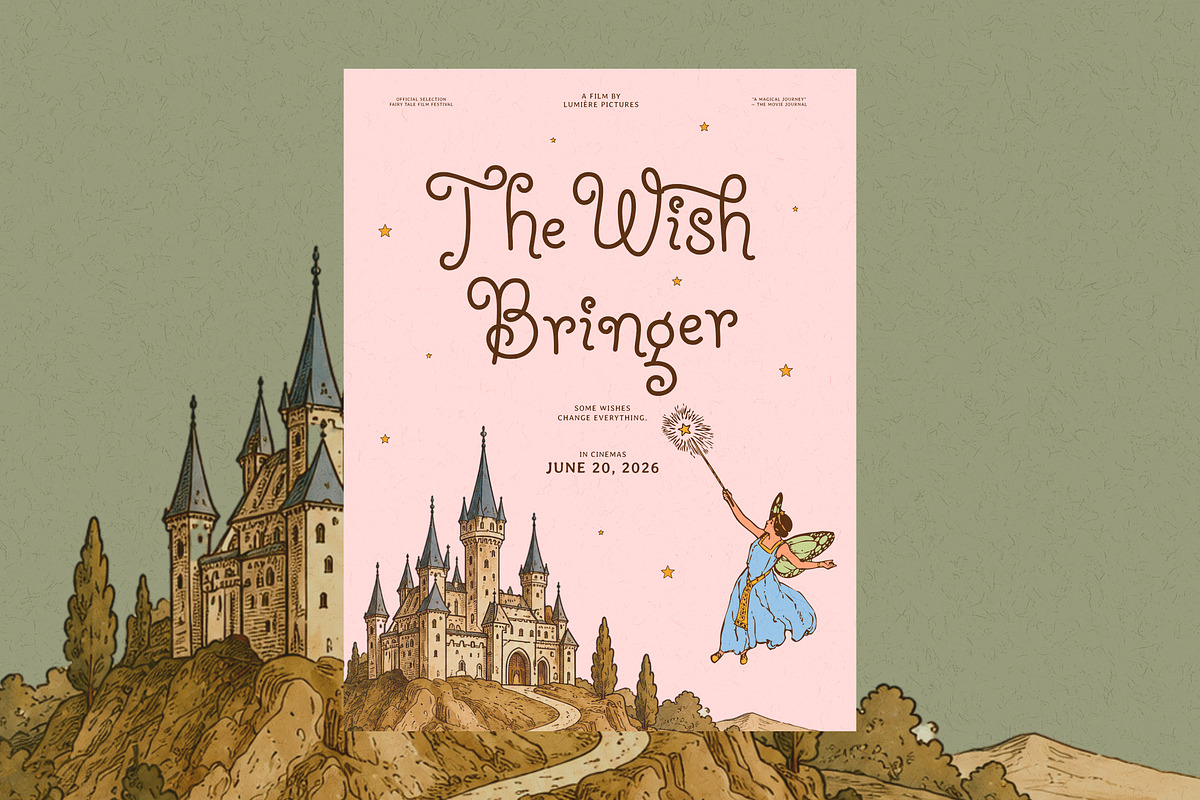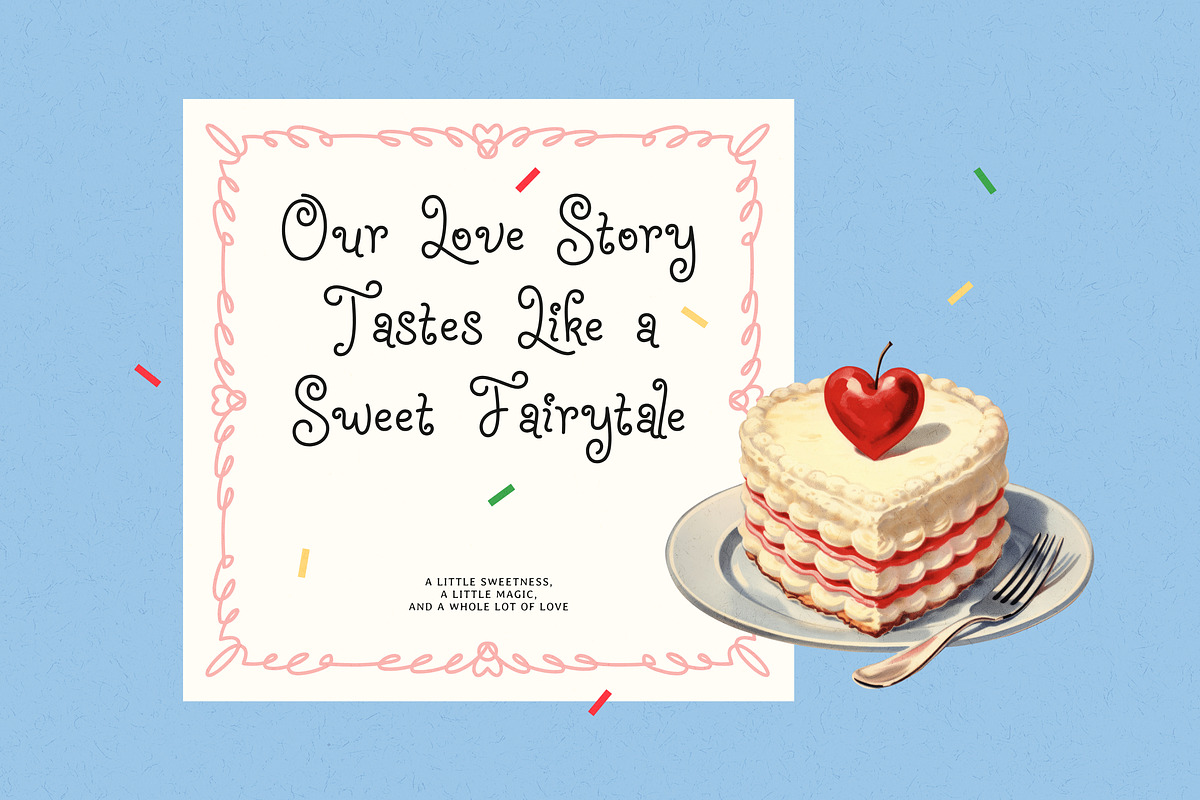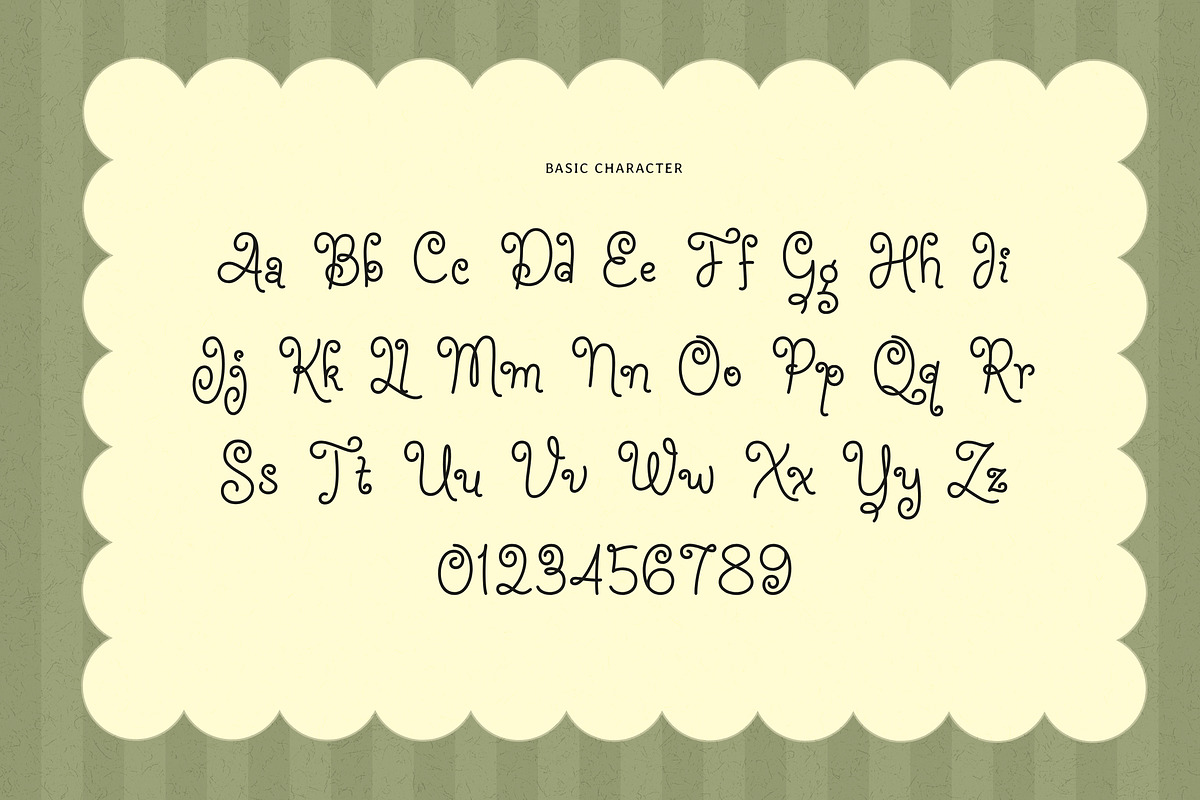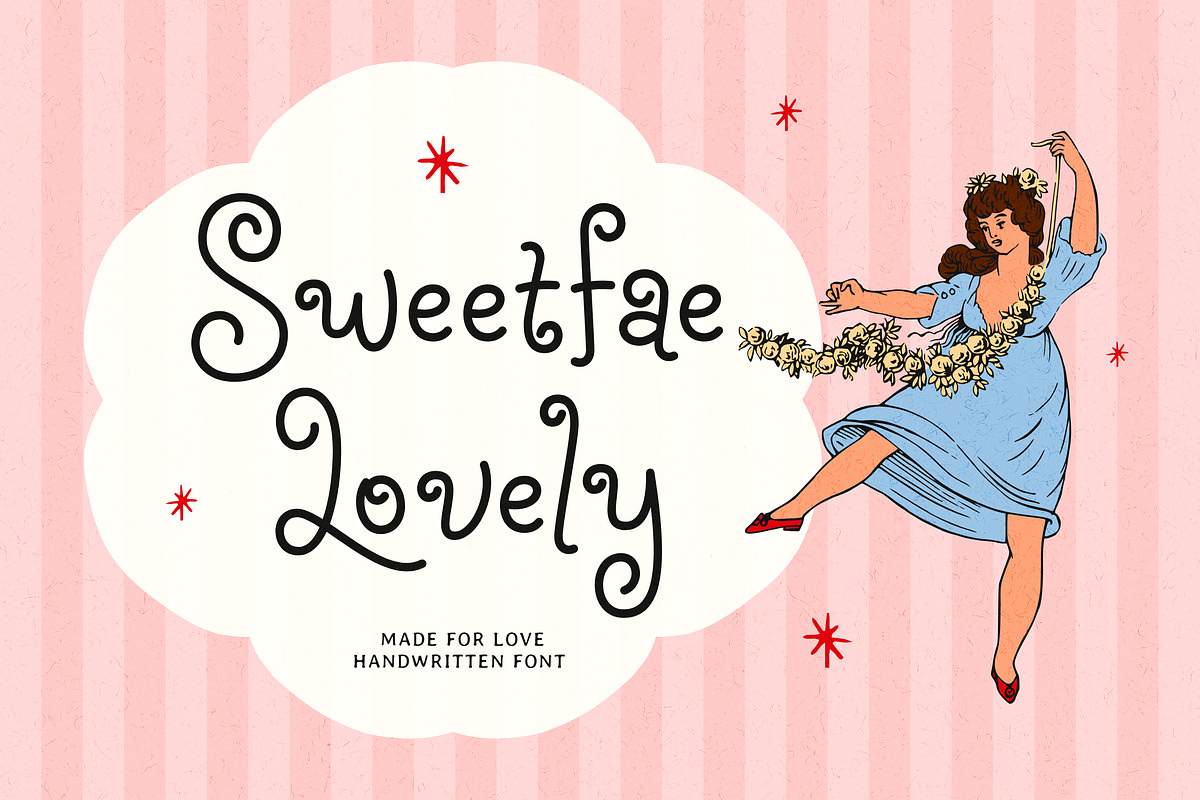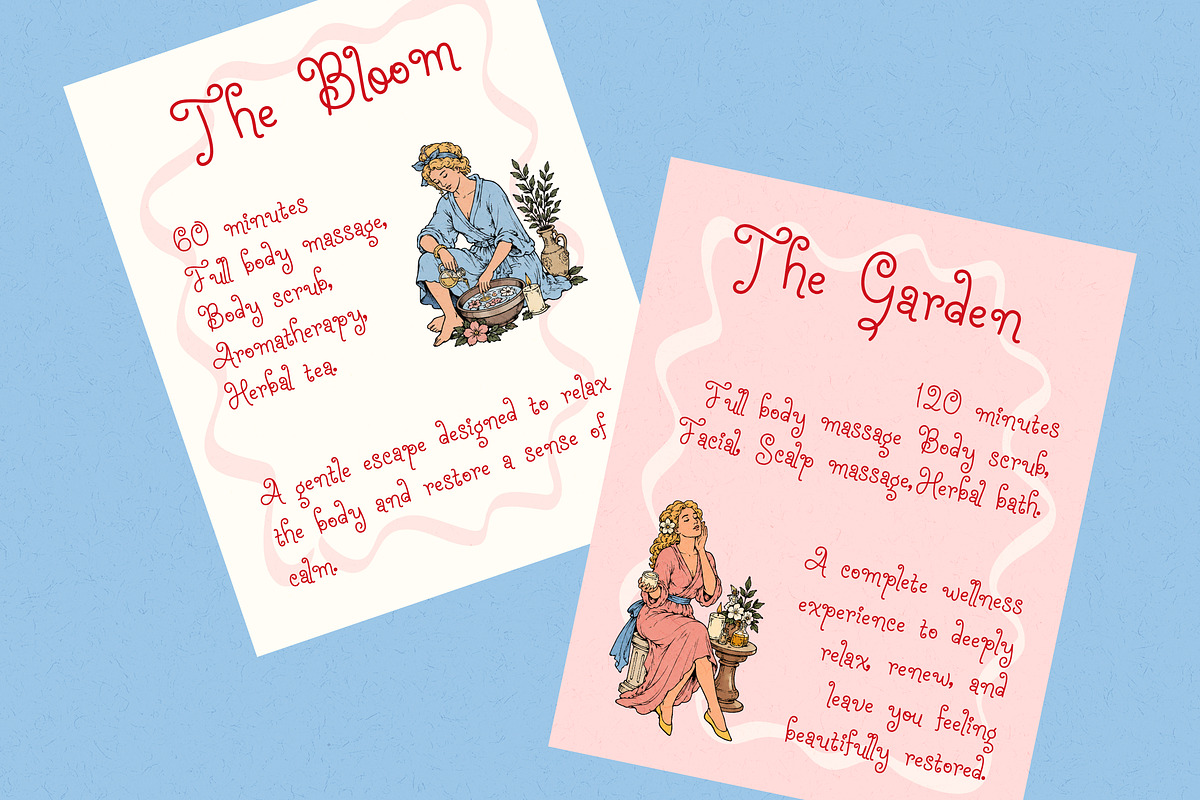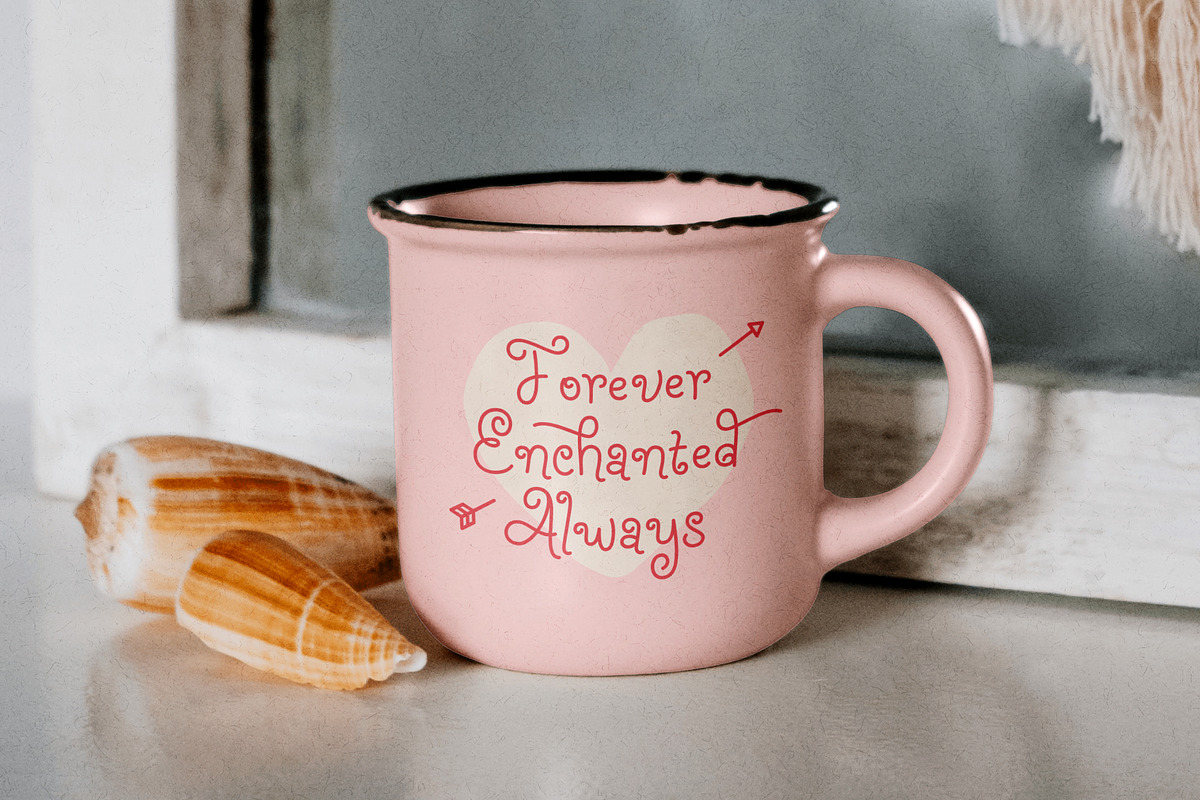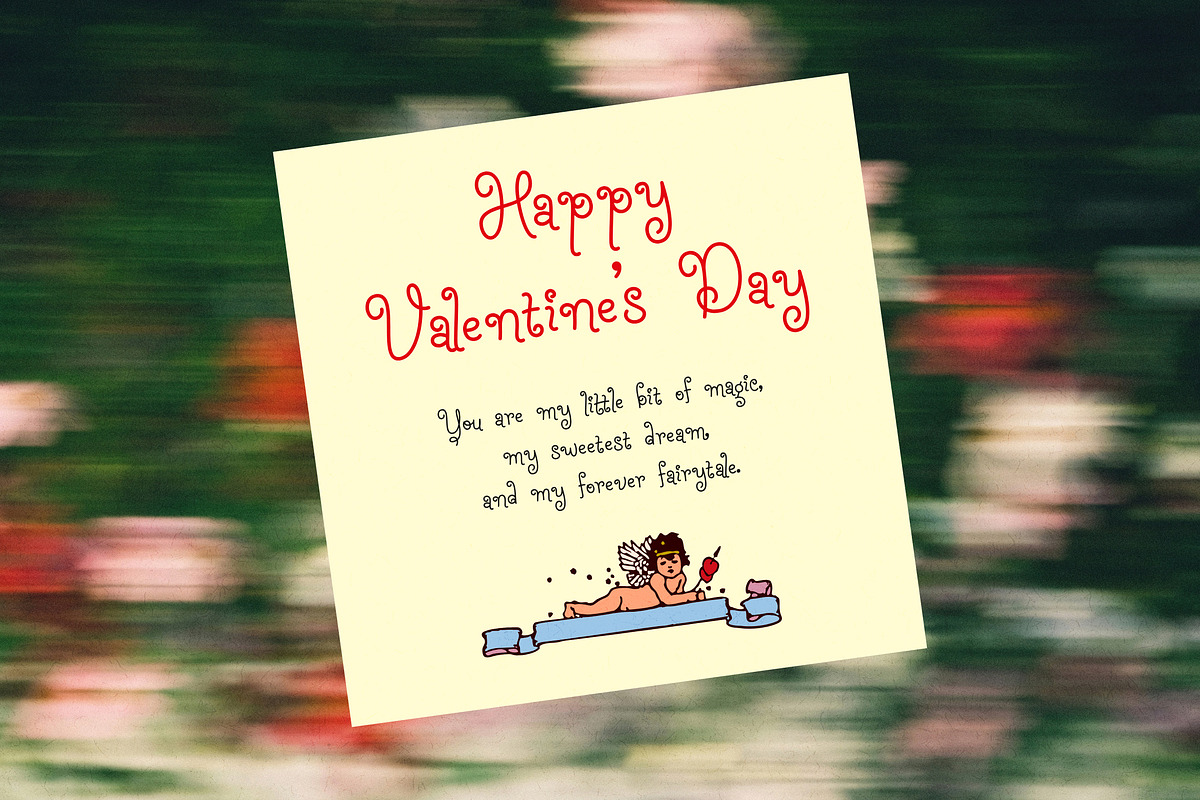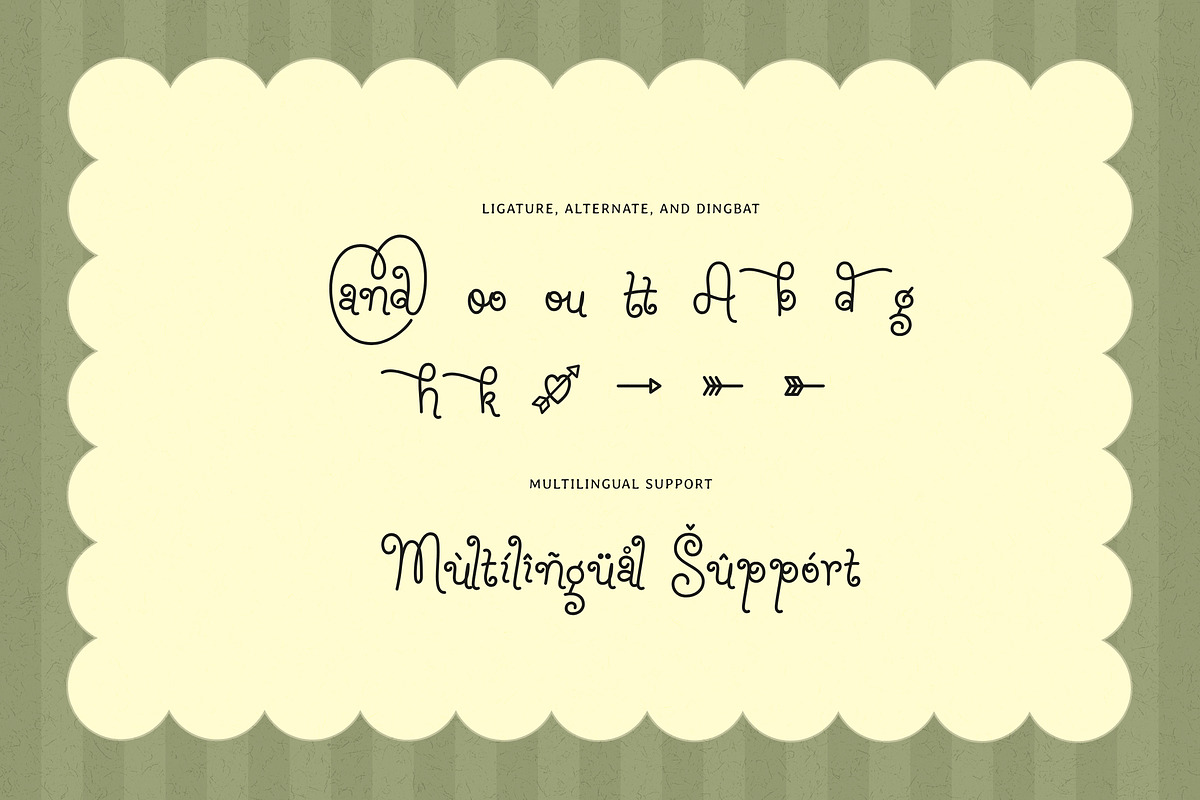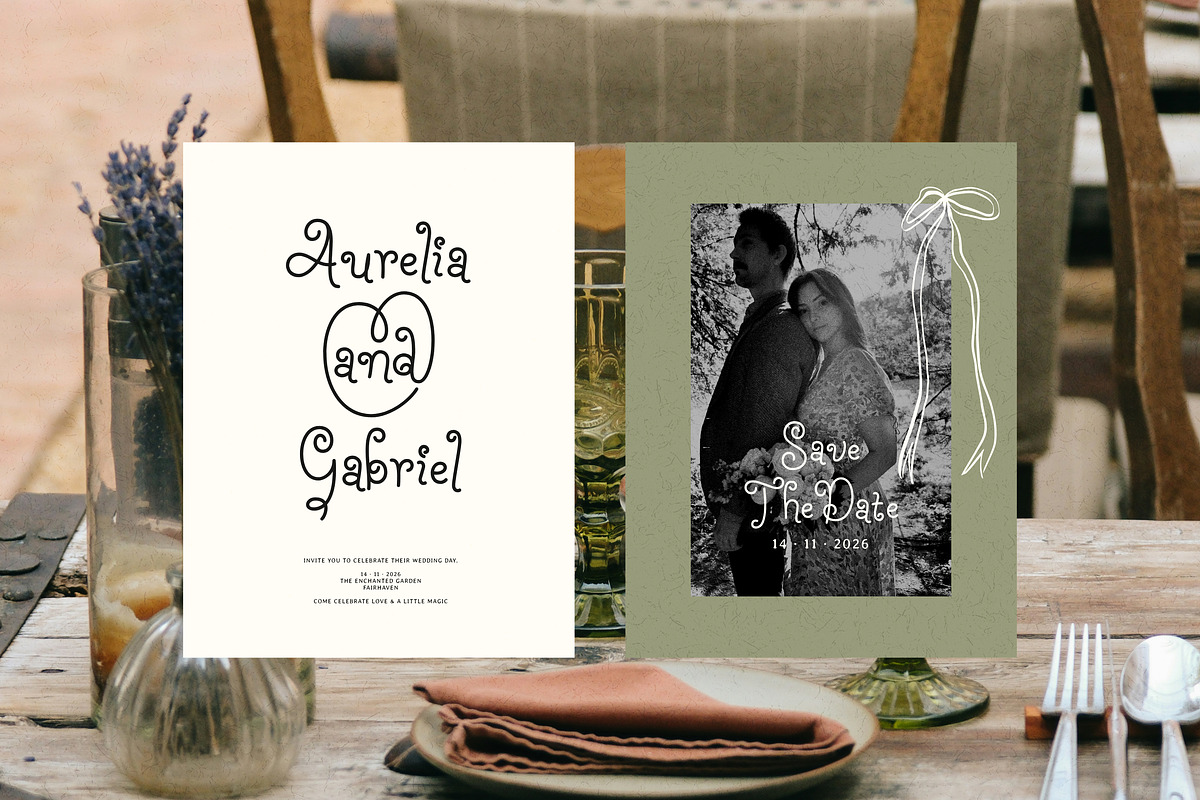
Sweetfae Lovely | Whimsical Script
Sweetfae Lovely is a handwritten script typeface with a monoline style that brings a romantic, playful, and fairytale inspired charm. The font is built with a consistent stroke weight from start to finish, giving it the look of handwriting drawn with a fine ink pen.
The letters are tall, slender, and highly expressive, featuring decorative loops at the ends of their strokes, and carry elegant spiral swashes. Includes decorative symbols dingbats such as small hearts, cupid style arrows, and swirl ornaments, perfect for valentine, wedding, or love themed designs.
This font design delivers a sweet, feminine, romantic feel with a classic fairytale touch, ideal for wedding invitations, valentine day products, headline poster or film cartoon, love quotes, packaging with a vintage fairytale, and greeting card designs with a warm vintage aesthetic.
Uppercase and Lowecase Characters.
Numerals and Punctuations.
Alternates and Ligatures.
Multilingual Support.